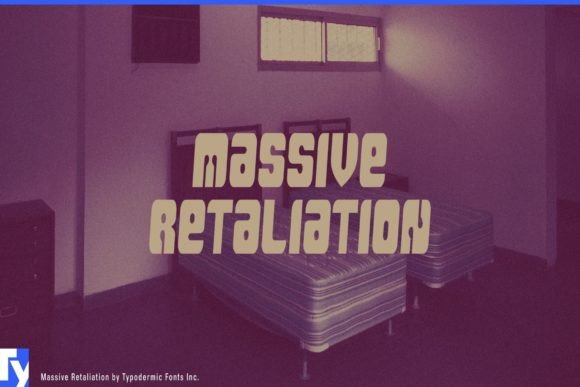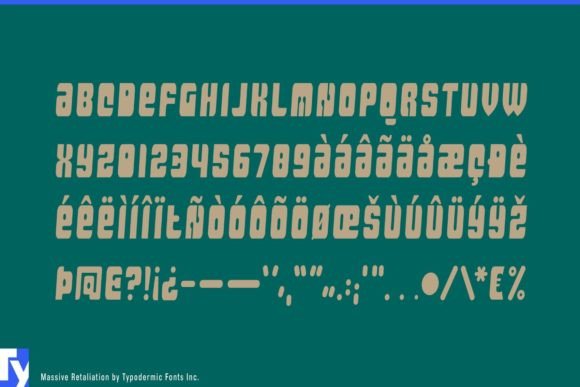
Massive Retaliation Font
About the Massive Retaliation Font
Add a touch of class to your work with the Massive Retaliation Font, a truly exceptional typeface. Massive Retaliation is a 1990s-style techno display font that will give your products the classic appearance you are looking for. Add it to your favorite creative projects, and notice how it makes them come alive!
Massive Retaliation excels in headline applications, short impactful statements, and logo design. Its strong, retro-futuristic aesthetic makes it ideal for projects aiming for a bold, 90s-inspired feel, such as video game titles, posters for electronic music events, or branding for tech companies seeking a nostalgic yet modern edge. Avoid using it for body text or lengthy passages; its highly stylized forms are not easily legible at smaller sizes.
Pairing-wise, a clean sans-serif like Helvetica Neue would provide a strong contrast and enhance readability in supporting text. For a softer contrast, consider a slightly rounded geometric sans-serif. To add a touch of vintage sophistication, a classic serif such as Garamond could be used sparingly for secondary elements.
The font’s core personality is undeniably bold and rebellious, with a strong sense of retro energy. It projects confidence and a sense of playful defiance, making it unsuitable for projects requiring elegance or subtlety.
Massive Retaliation Font Example